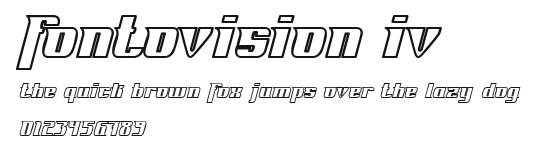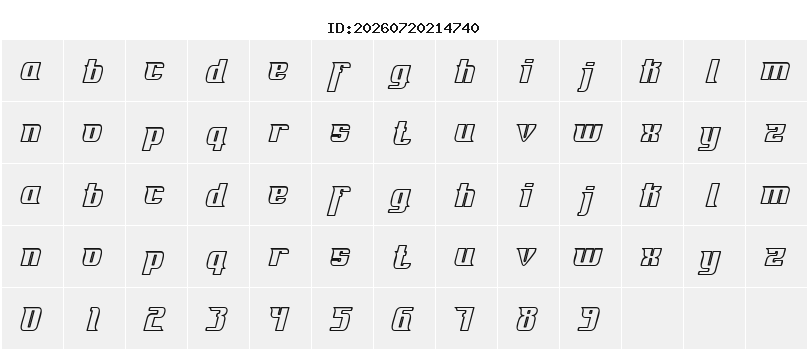
• Font Name: Fontovision IV
• Font Style: outline
• Full Font Name: Fontovision IV outline
• Copyright: designed by Dieter Schumacher ©1999
Fontovision IV.ttf is a modern, elegant sans-serif font designed for ultimate readability and visual harmony. Perfect for branding, headlines, web design, and print materials.